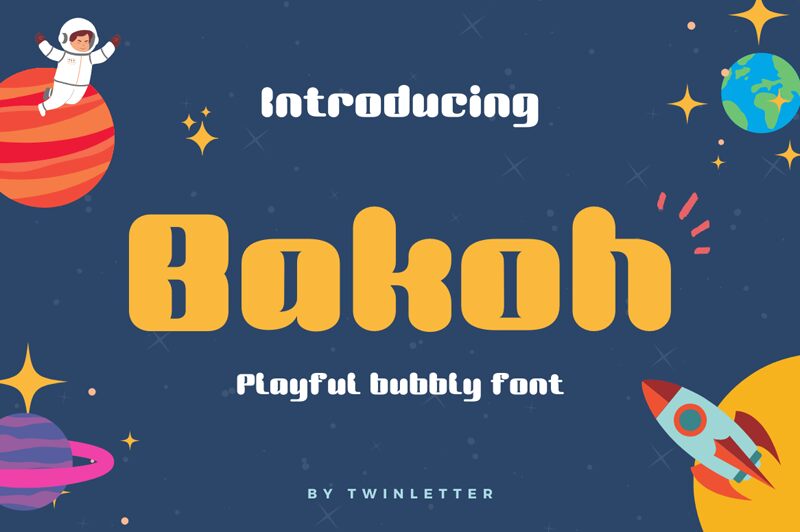
Bakoh, a delightful creation by twinletter, is an extraordinary display font that exudes energy and charm. With its extra-bold weight and semi-expanded width, Bakoh is perfect for adding a touch of playfulness to various creative projects.
Whether it's designing eye-catching logos, crafting vibrant posters, or producing captivating social media graphics, this bubbly typeface will effortlessly inject life and excitement into your work.
Let Bakoh take center stage and infuse your designs with its exuberant personality.
Bakoh